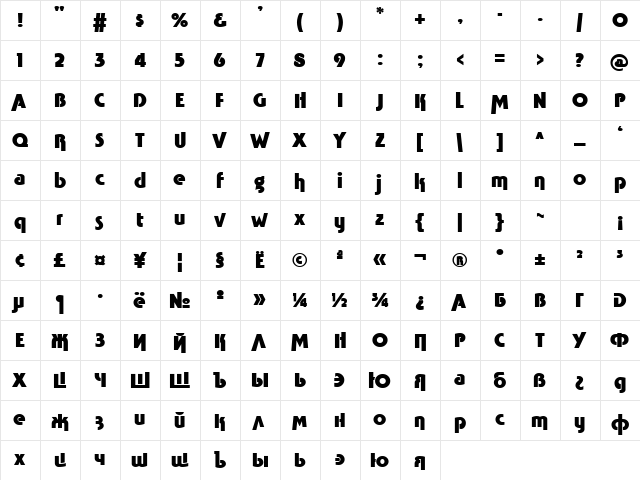
TavridaAd Bold
Design Context for TavridaAd Typeface
TavridaAd takes a measured approach to typography — its balanced proportions and neutral character make it a reliable workhorse for both digital and print work. Its bold stroke weight gives it real presence on the page.